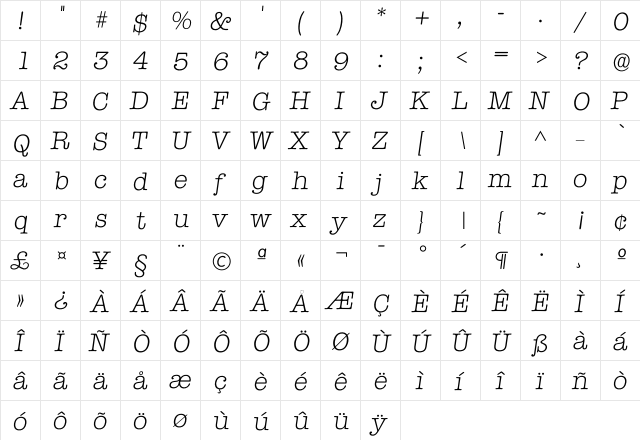
Itypewriter Light
Design Context for Itypewriter Typeface
Itypewriter uses fixed-width spacing throughout, giving it the structured, systematic character associated with coding environments and technical documentation. The delicate stroke weight brings airiness and refinement to layouts.
A natural fit for code editors, technical documentation, developer-focused branding, and terminal-inspired UI.
Pro Tip: Pair Itypewriter with a proportional sans for UI contexts where code-style labels and regular body copy need to coexist.